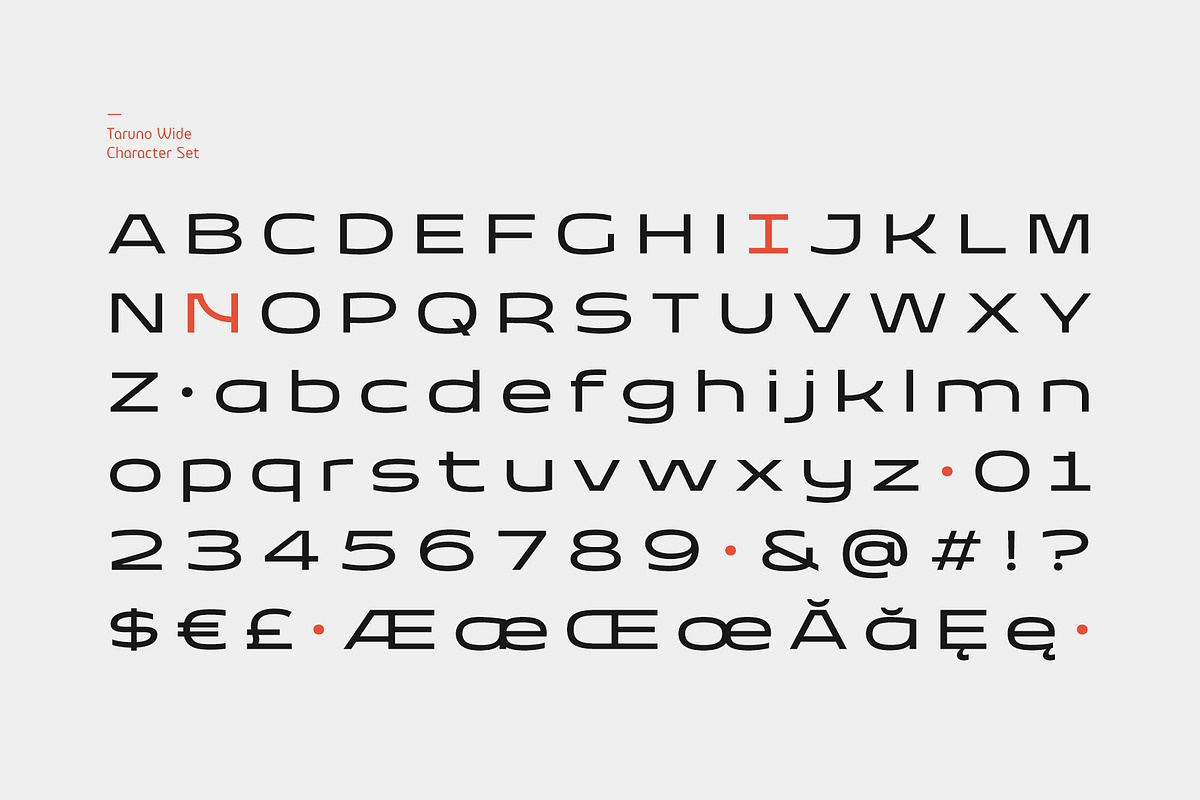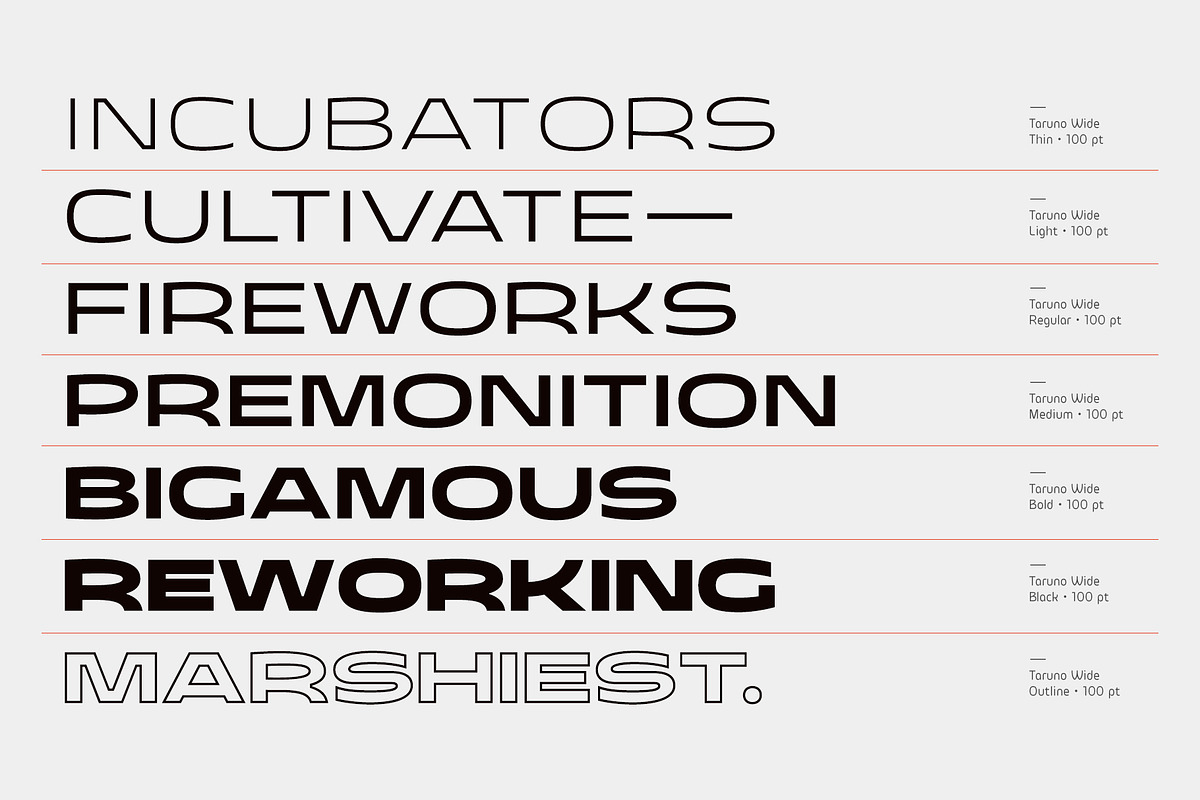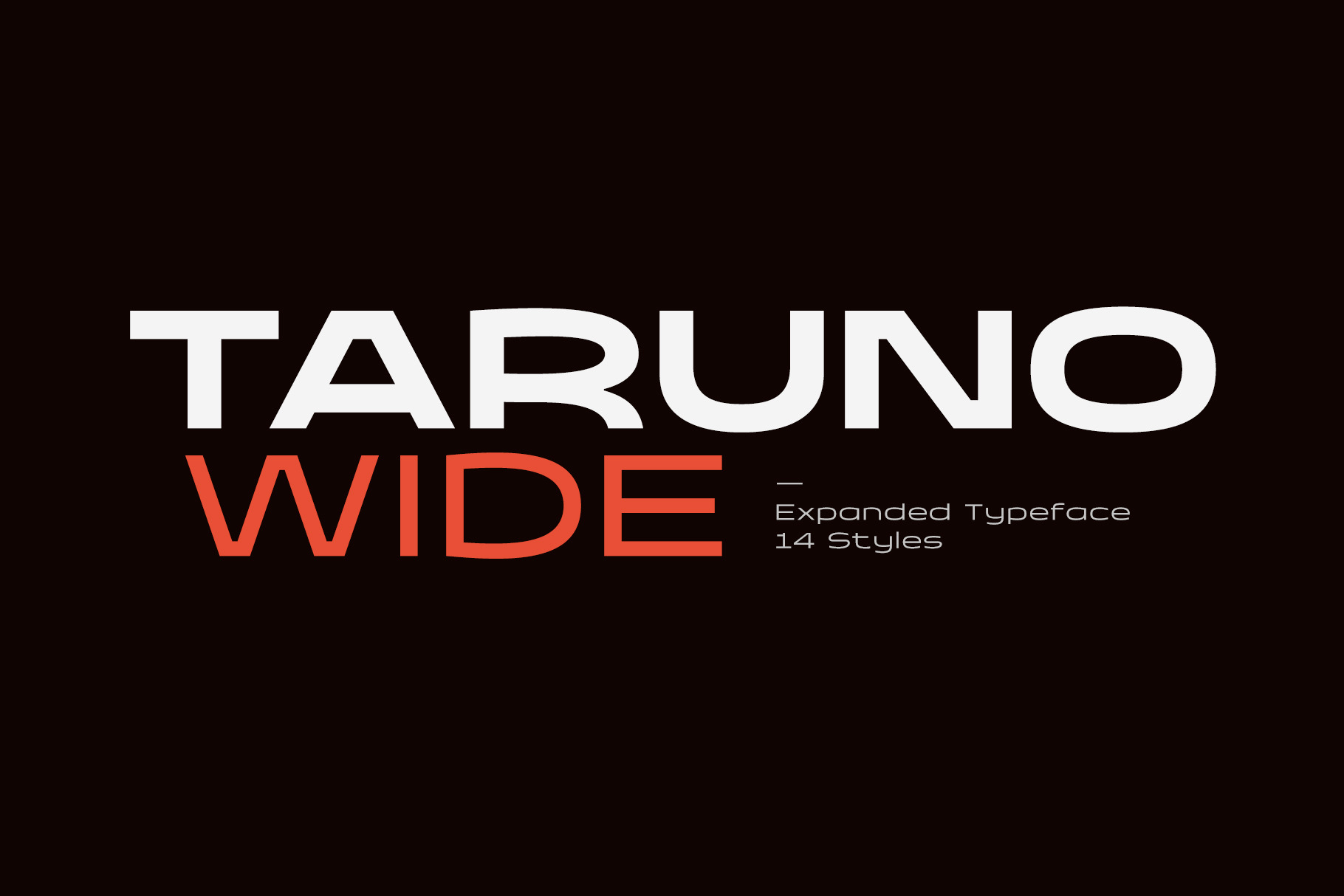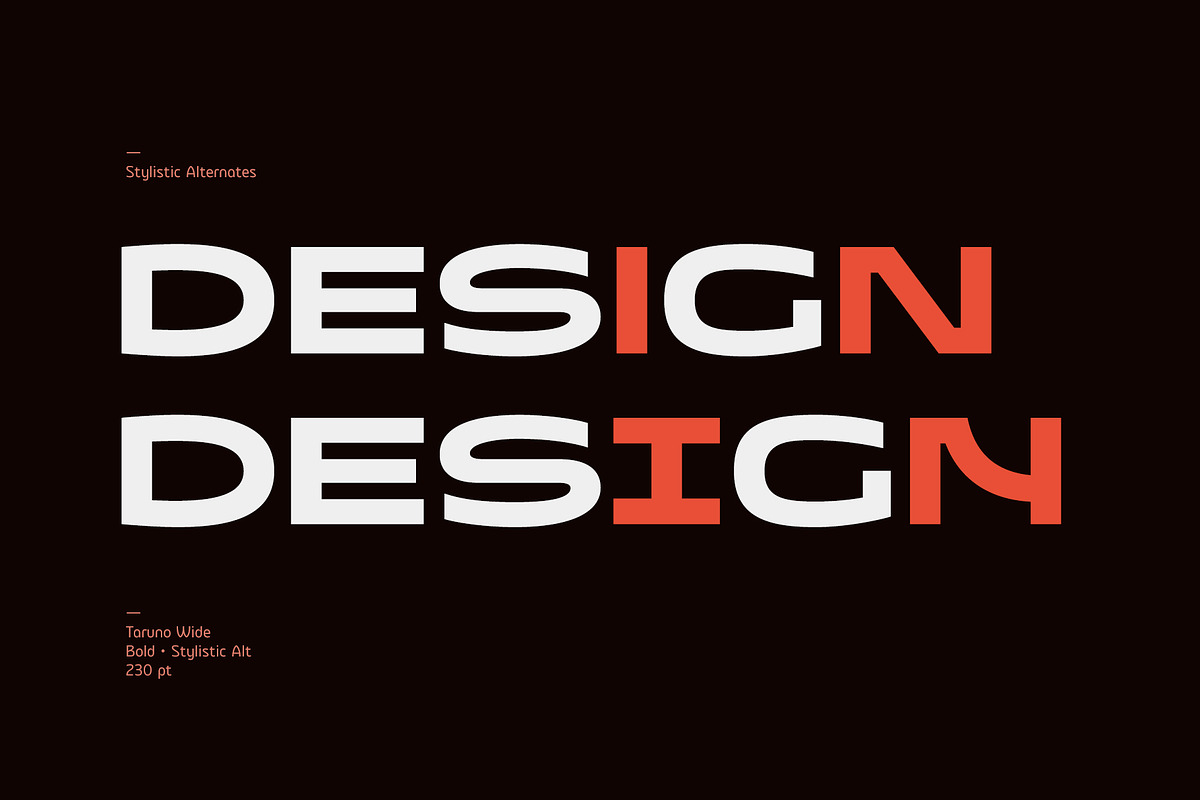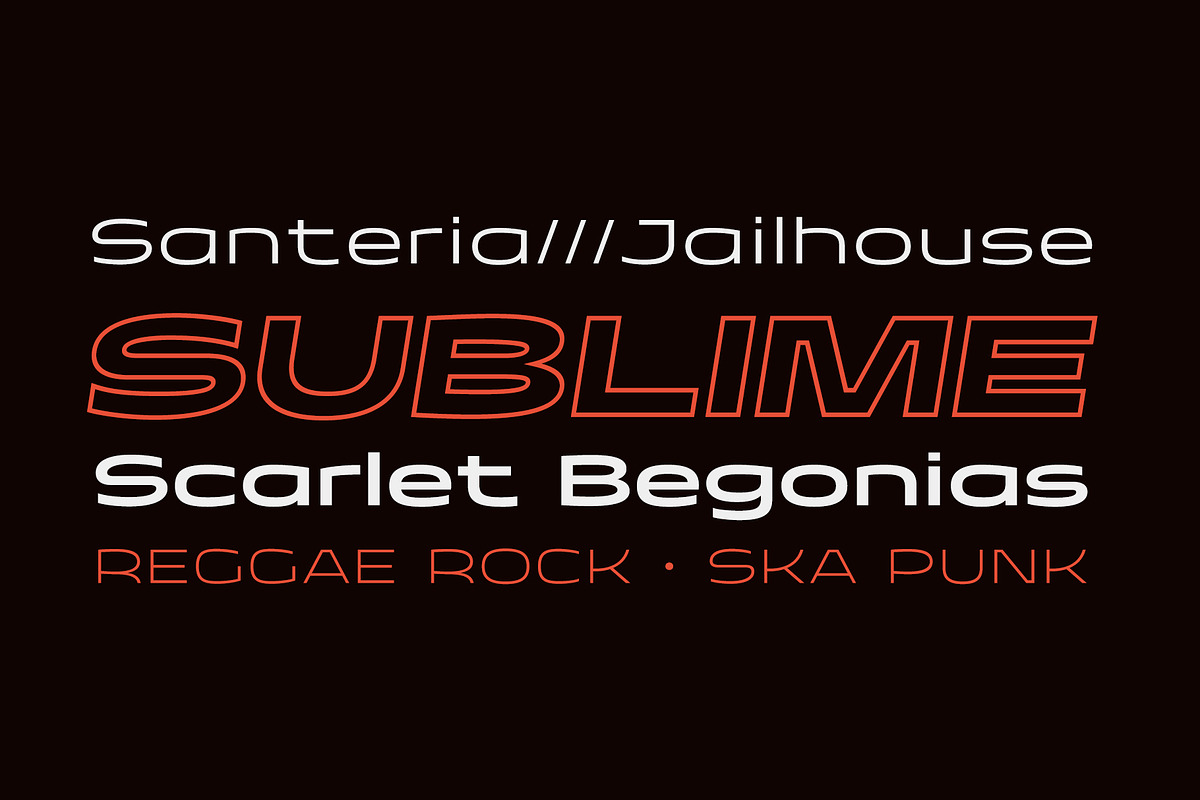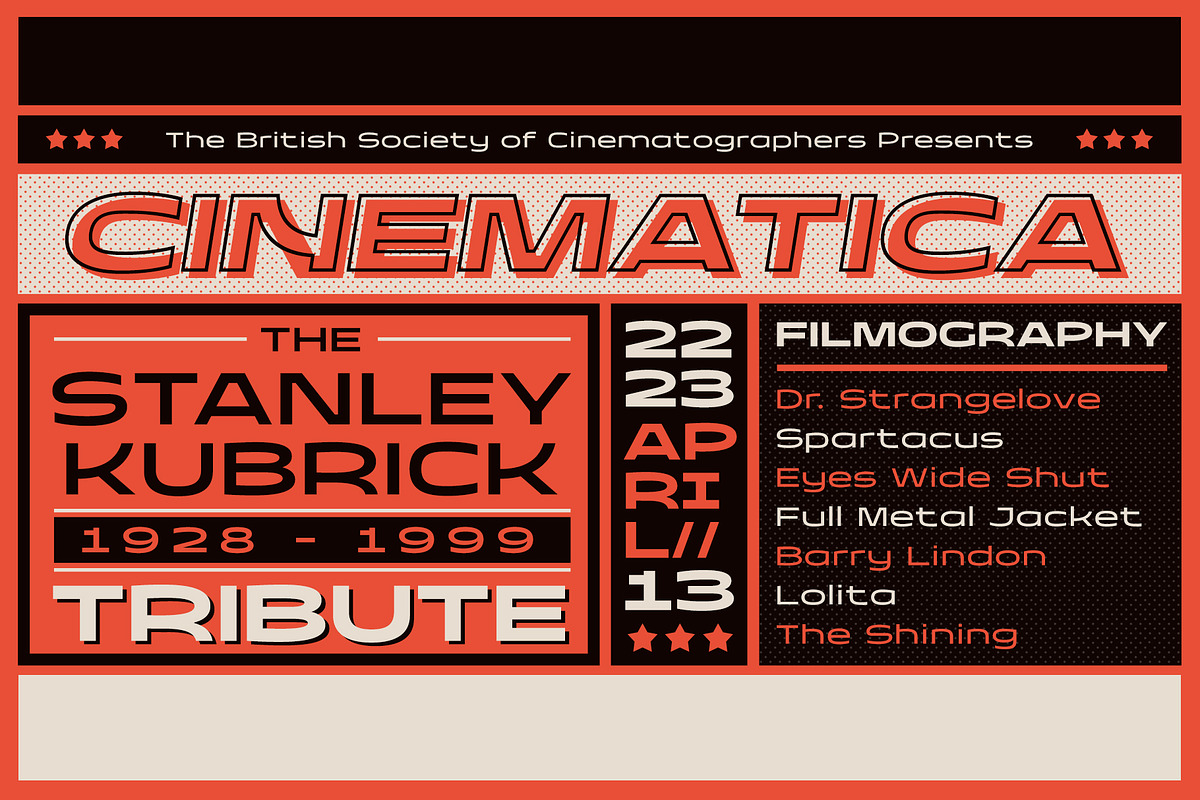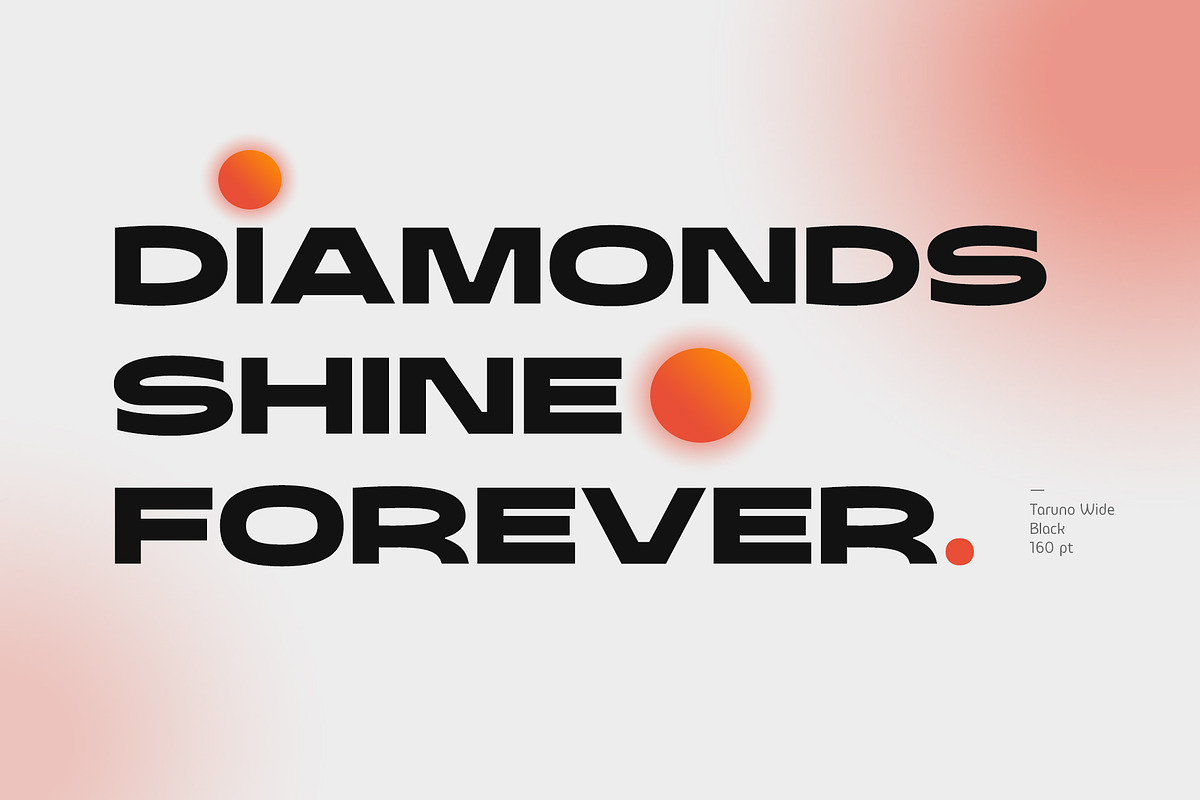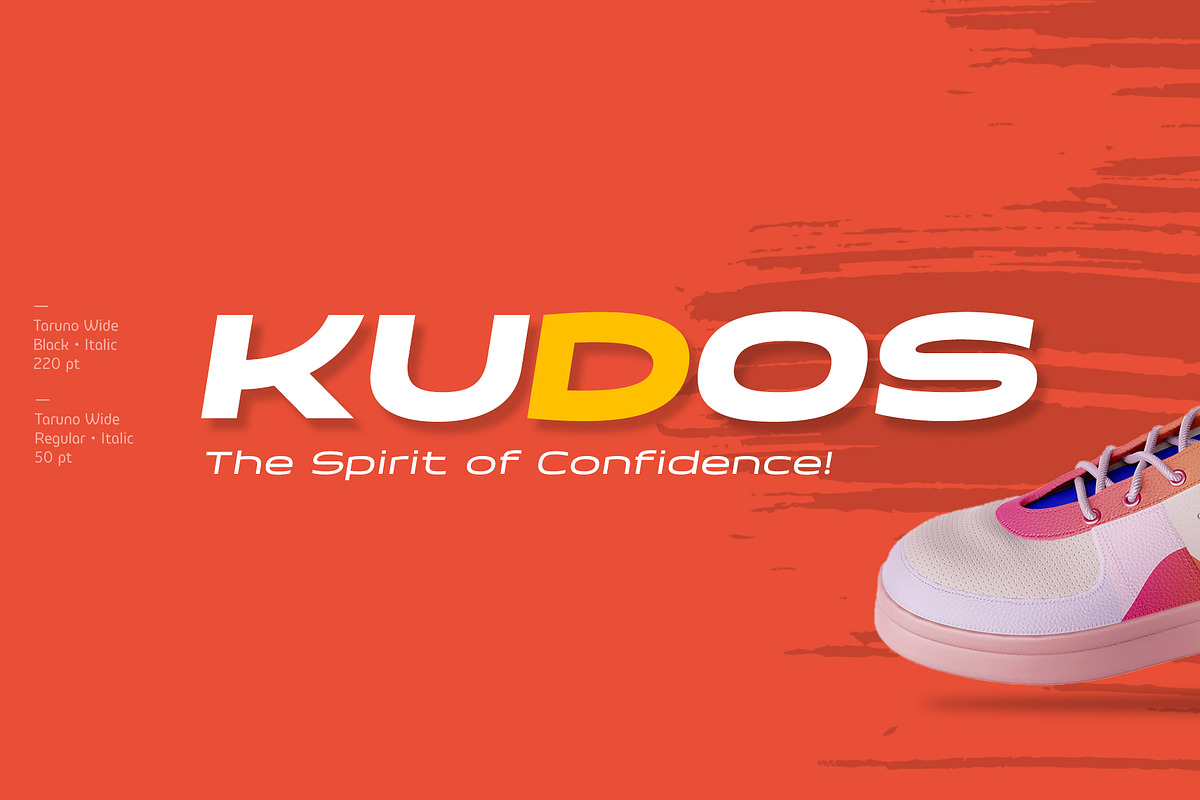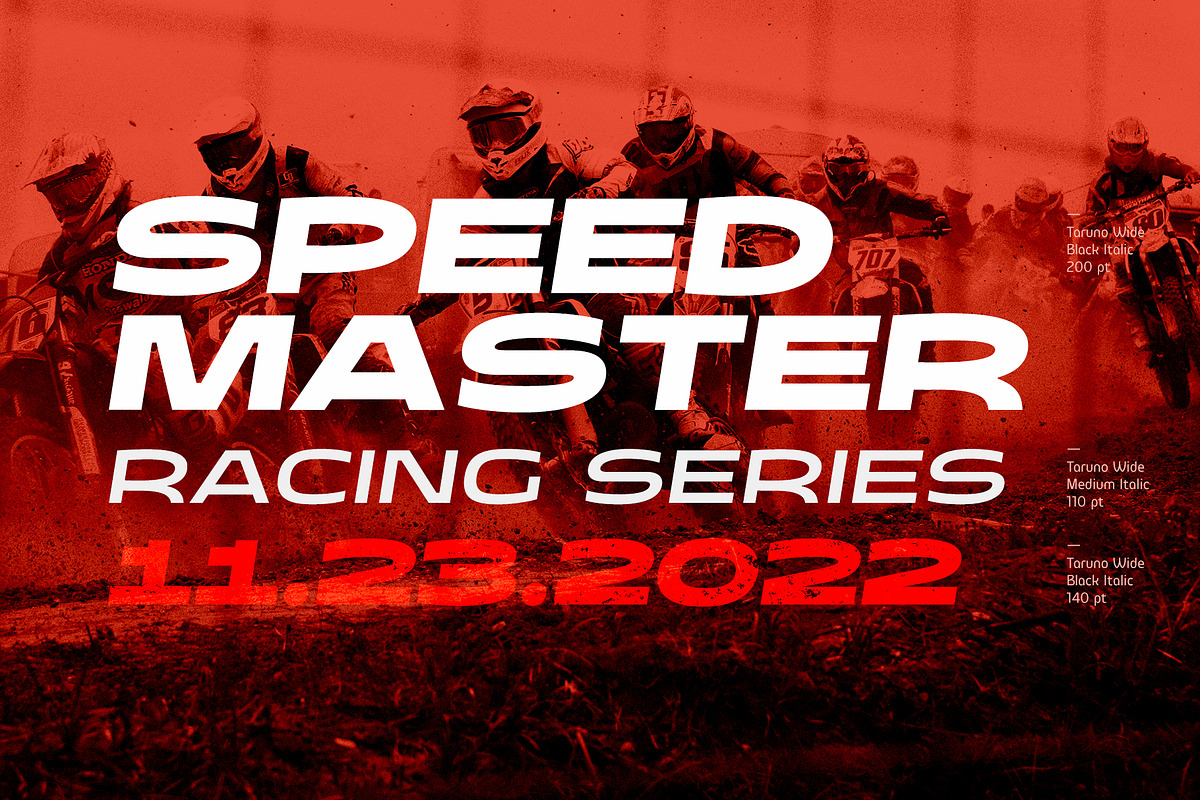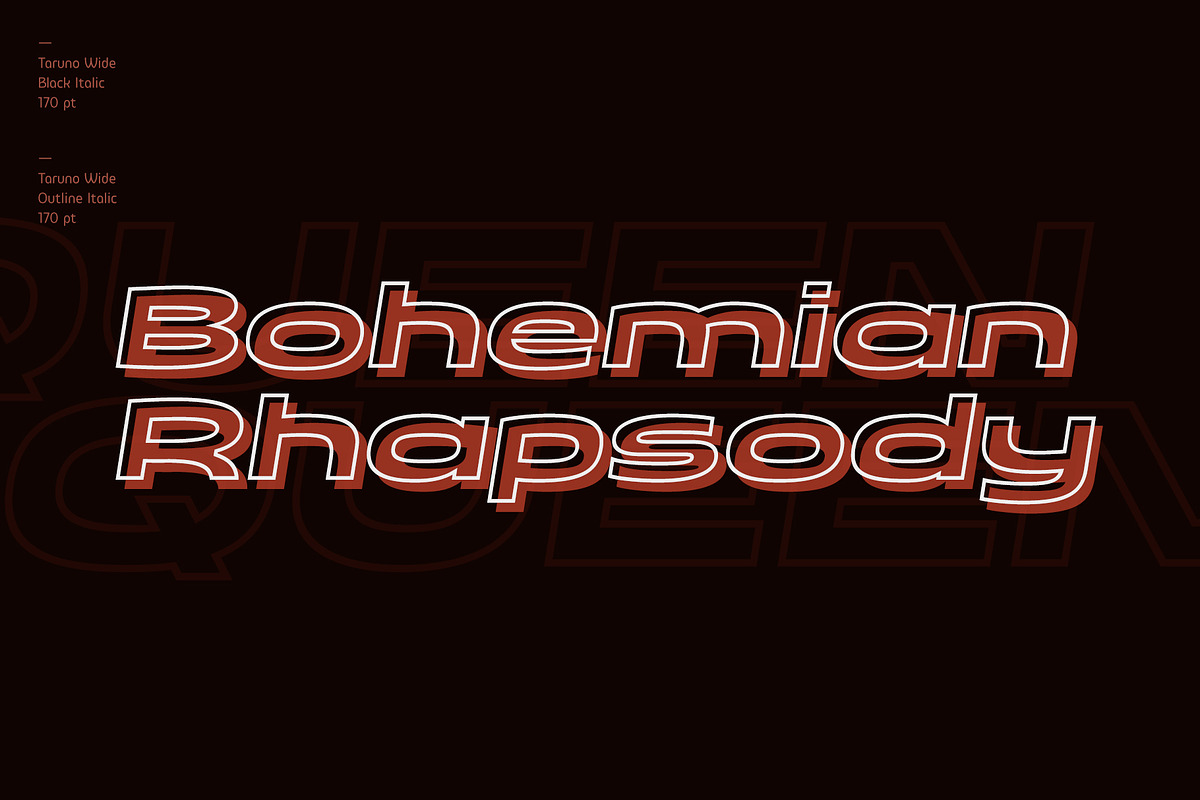
Taruno Wide Font Family
Taruno Wide is an expanded display font that effortlessly evokes an aggressive yet elegant vibe with a modern twist. Choosing this font is a stellar solution for classy design projects that demand to leave a strong and professional impression.
Consisting of 6 beautiful weights and an outline version plus matching italics, this minimalist sans serif will fit wherever you put it. Use this for clothing designs, posters, branding and more!
Taruno Wide Complete Family:
- Taruno Wide Thin
- Taruno Wide Thin Italic
- Taruno Wide Light
- Taruno Wide Light Italic
- Taruno Wide Regular
- Taruno Wide Italic
- Taruno Wide Medium
- Taruno Wide Medium Italic
- Taruno Wide Bold
- Taruno Wide Bold Italic
- Taruno Wide Black
- Taruno Wide Black Italic
- Taruno Wide Outline Regular
- Taruno Wide Outline Italic